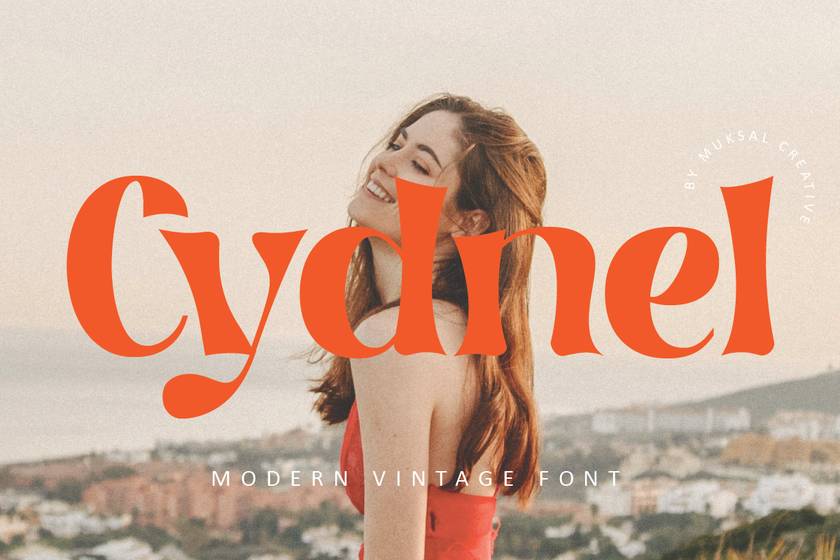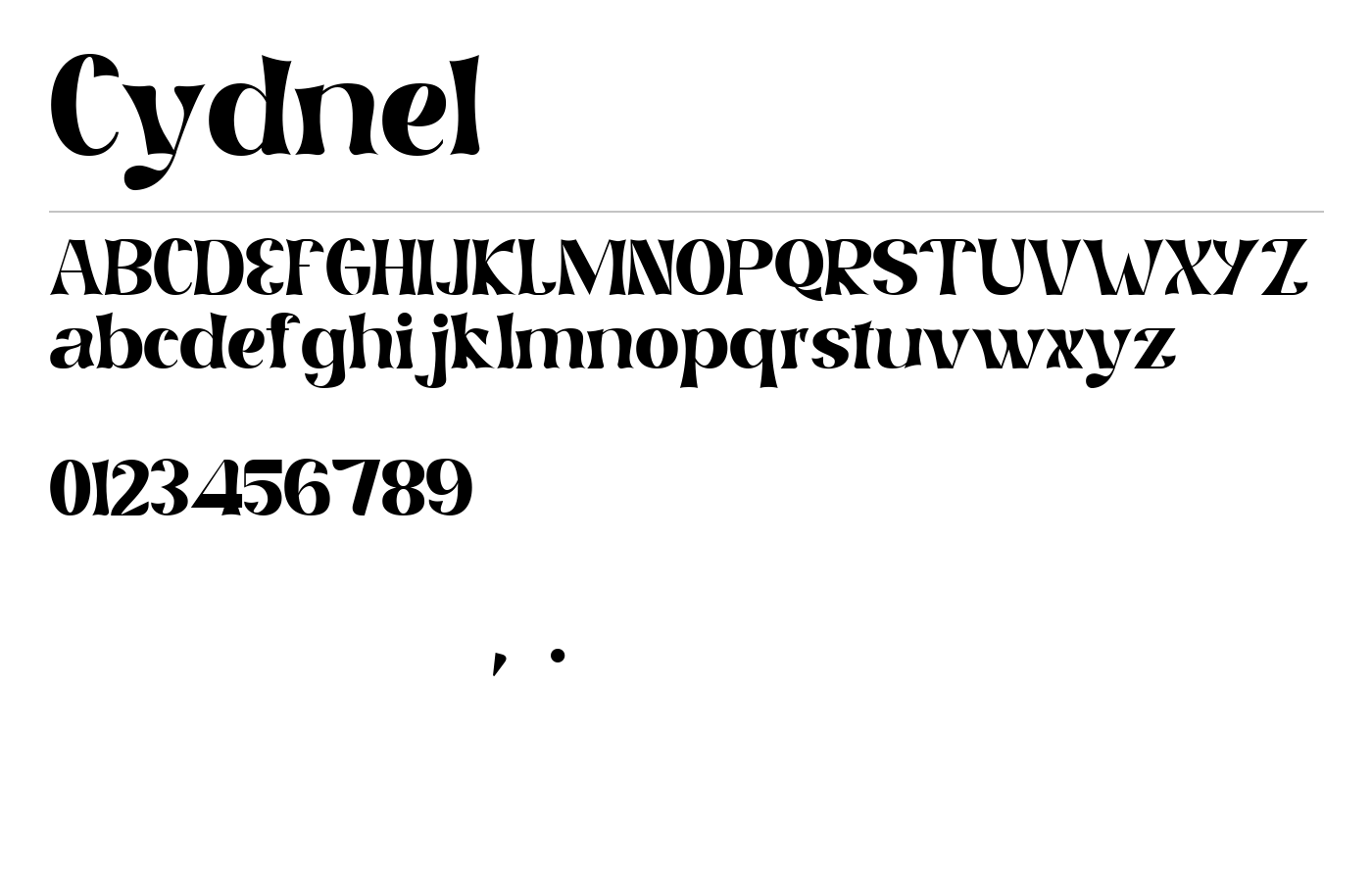
Cydnel is a bold serif font with a distinctive, artistic flair characterized by high contrast strokes and sharp, bracketed serifs that blend modern elegance with vintage charm. Its unique letterforms, including stylized terminals and angled serifs, give it a strong personality, making it ideal for eye-catching headlines, logos, and packaging that seek a creative yet refined look. This font works well in fashion and luxury branding where a memorable and sophisticated presence is desired.
Cydnel Font
About Cydnel Font
| Font family | Cydnel Font |
| Designer | Muksal Creative |